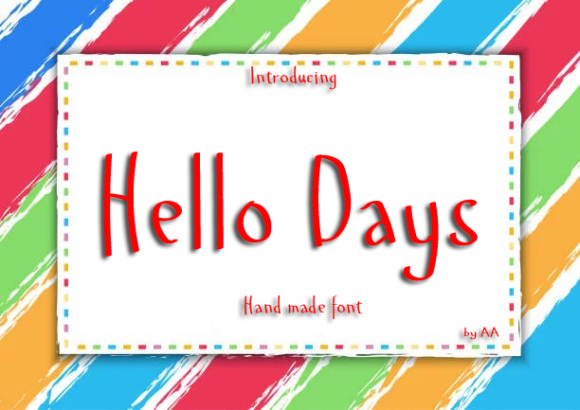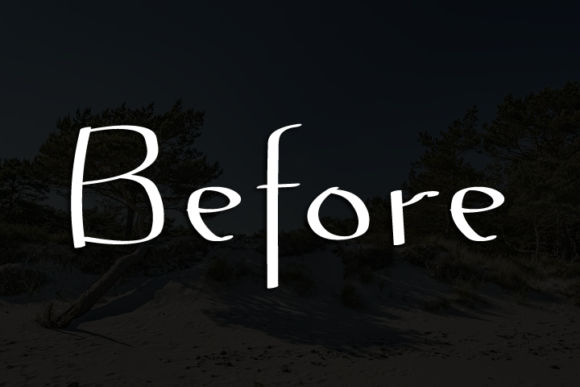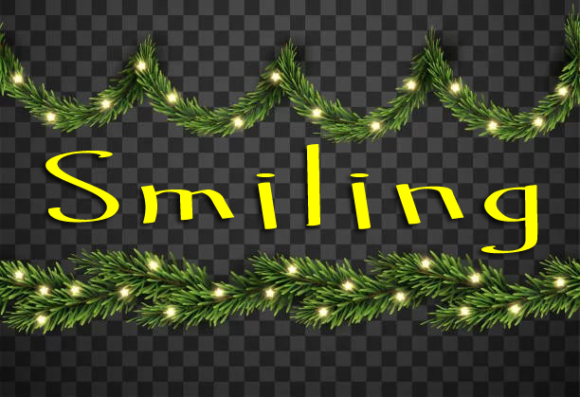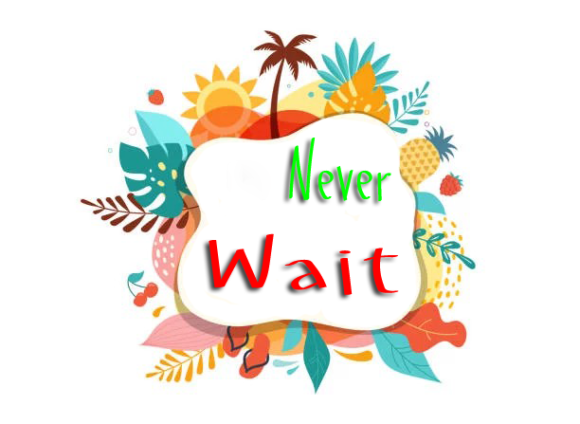
About Hello Days Font
Hello Days is a cute and simple lettered handwritten font that can be used for all chalkboard quotes or teaching material! Its authentic look will add a personal and realistic feel to your designs.